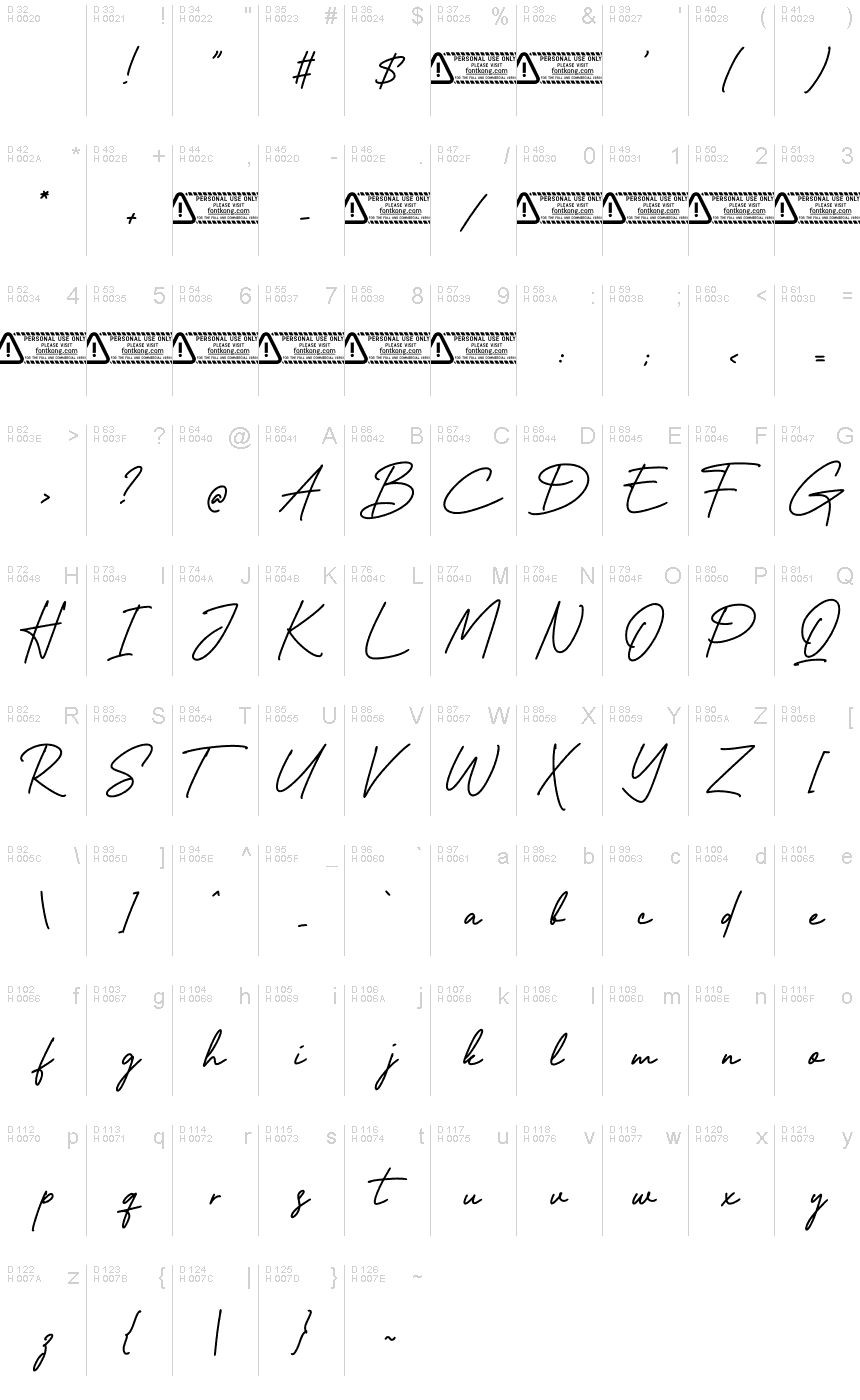
Black Ashpalt
Black Ashpalt by Kong Font is a captivating handwritten typeface that exudes elegance and charm. With its monoline style and extra-light weight, this font is perfect for projects requiring a touch of sophistication. Whether it's fashion branding, wedding invitations, or high-end product packaging, Black Ashpalt adds a personalized signature touch to your designs. Its sleek curves and refined strokes make it suitable for creating logos that leave a lasting impression. This versatile font effortlessly combines creativity with professionalism, making it the ideal choice for any project where style and finesse are paramount.